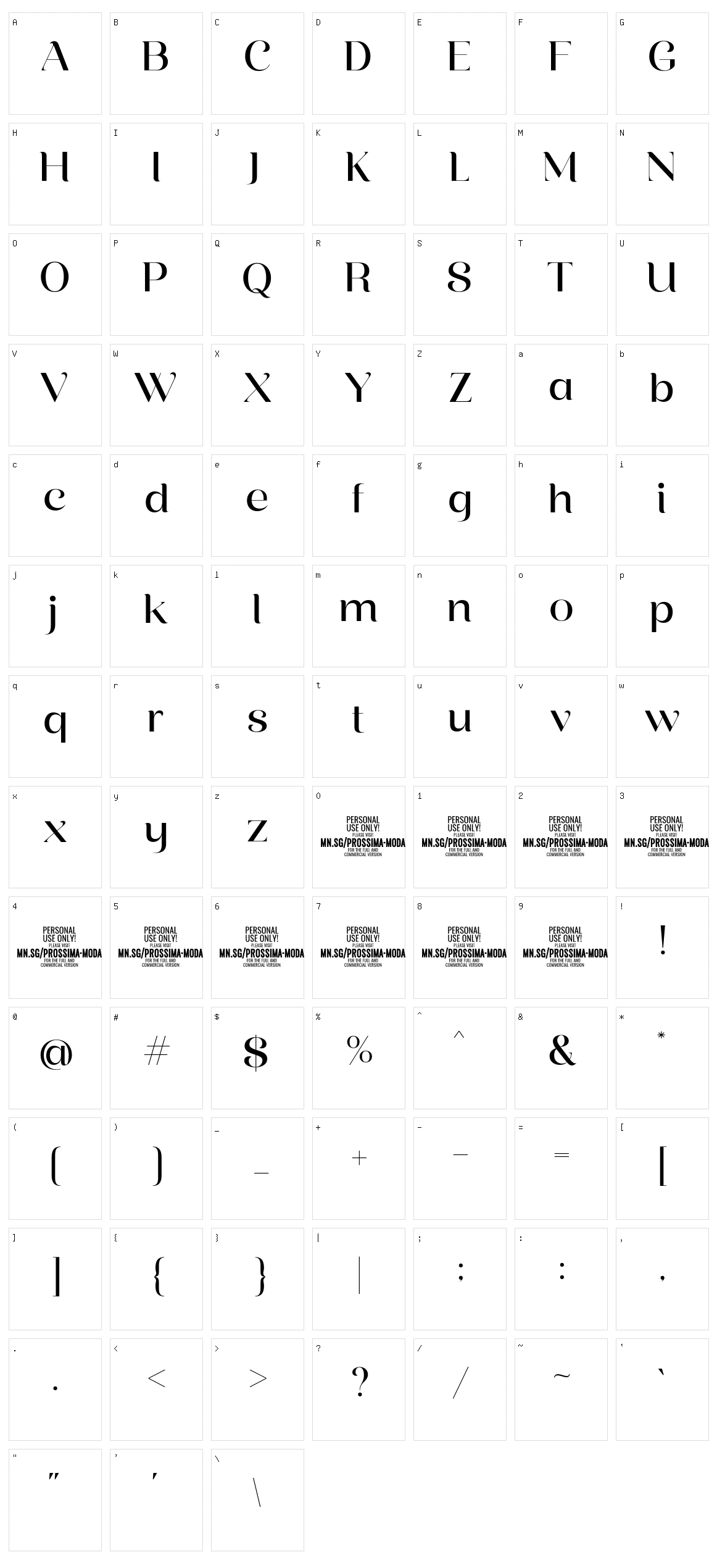
Prossima Moda is a font that radiates modernity and fashion-forward style. Its sleek and contemporary design evokes a sense of sophistication and elegance, while its contrasting lines add a touch of visual interest and intrigue. The font exudes a cool and sweet vibe, creating a captivating and alluring atmosphere.
With Prossima Moda, each letter is meticulously crafted to showcase its unique beauty, creating a harmonious blend of form and function. The font's smooth curves and clean lines give it a polished and refined look, reflecting the precision and attention to detail that are synonymous with the fashion industry.
This font not only captures the spirit of the latest fashion trends, but it also embodies a sense of individuality and self-expression. It is a font that speaks to the modern individual who seeks to make a statement and stand out from the crowd.
The font is built with advanced OpenType functionality and has a guaranteed top-notch quality, containing stylistic and contextual alternates, ligatures, and more features; all to give you full control and customizability. It has extensive lingual support, covering all Latin-based languages, from Northern Europe to South Africa, from America to South-East Asia. It contains all characters and symbols you'll ever need, including all punctuation and numbers.